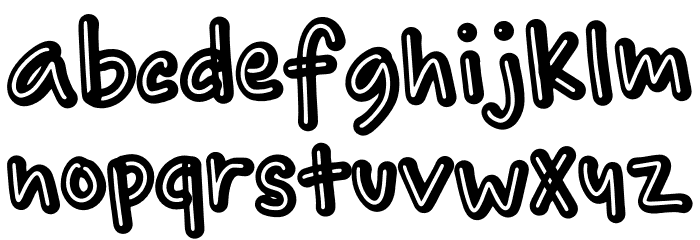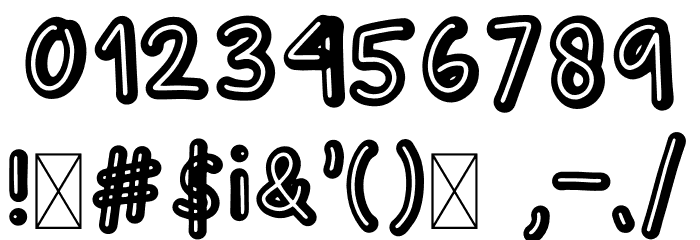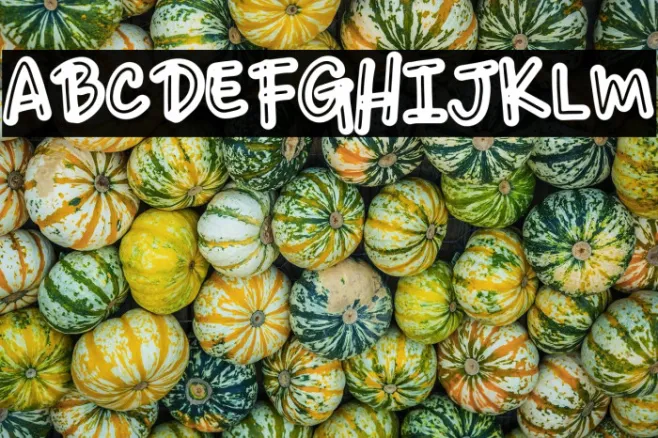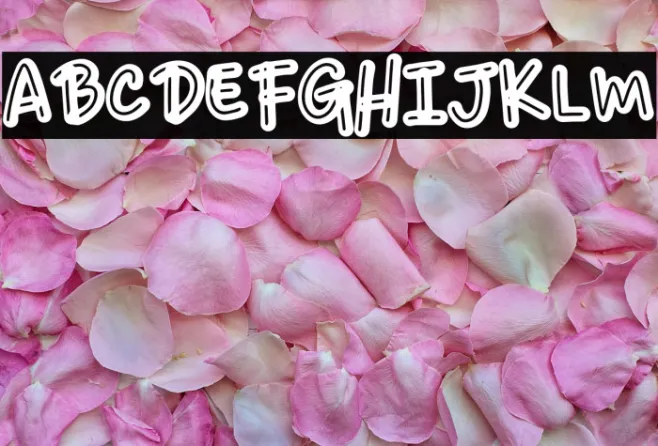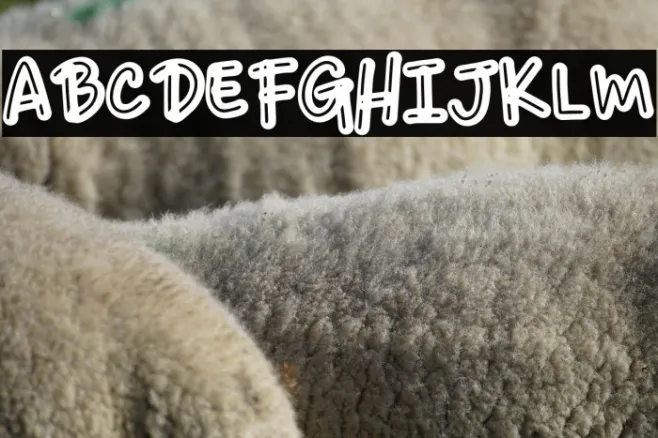
Good Books Font
This playful and bold font features a handwritten style with a thick outline that gives it a cartoonish and friendly appearance. The characters are rounded and slightly irregular, adding to the casual and informal vibe. The uppercase and lowercase letters maintain a consistent style, with a slight slant that suggests movement and energy. The numbers and special characters are equally bold and expressive, making them stand out. This font is perfect for projects that require a fun and approachable look, such as children's books, comic strips, or playful branding.
A bold, playful handwritten font with a cartoonish style.
- Font: Good Books
- Proposed Projects: Ideal for children's books, comic strips, playful branding, and casual invitations.
- Category: Handwritten
- Overall Style: Playful